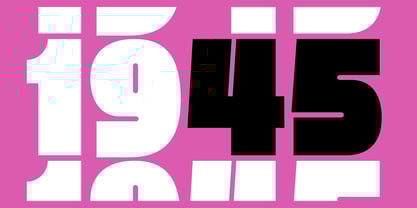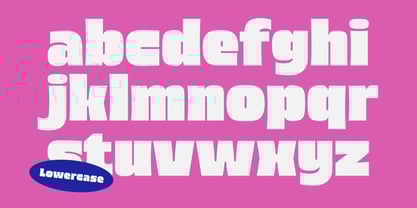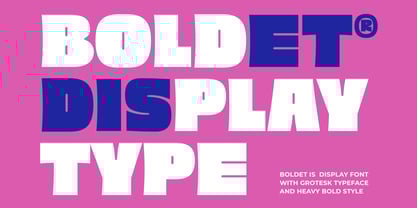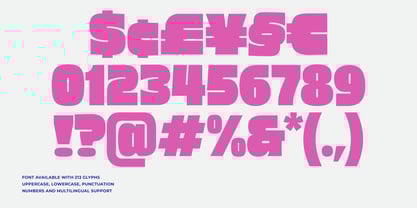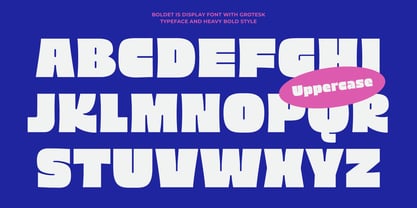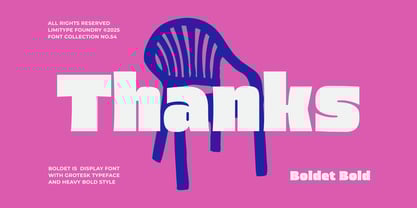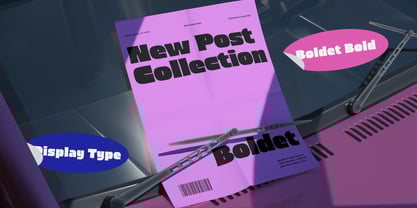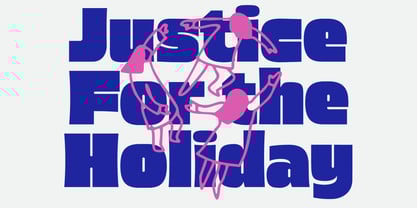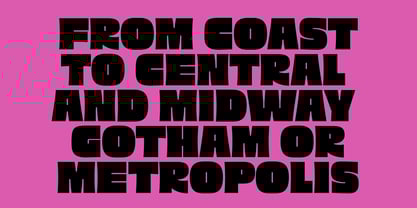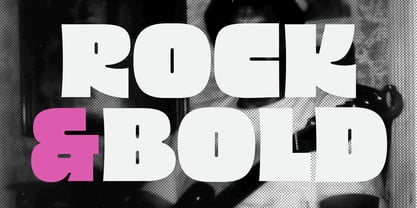
Boldet
by limitype
The Boldet Font Family was designed by Muhammad Muammar, Furqan Sudirman and published by limitype. Boldet contains 1 styles.
Boldet font comes in a grotesk style that is bold, solid, and full of character, bringing out an expressive blend of retro and modern vibes. Its block shaped forms with subtle curves give it a funky, playful, and energetic feel, making it a perfect choice for titles, posters, or designs that require strong attention and a striking visual presence.